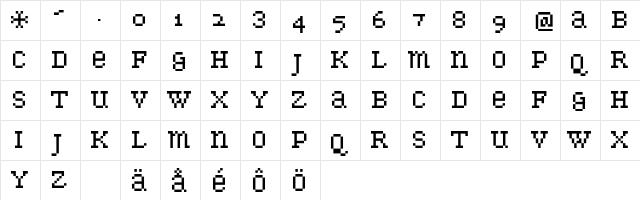
Gentleman Caller Regular
Design Context for Gentleman Caller Typeface
Gentleman Caller is a composed and adaptable typeface that performs quietly and consistently across a wide range of design contexts.